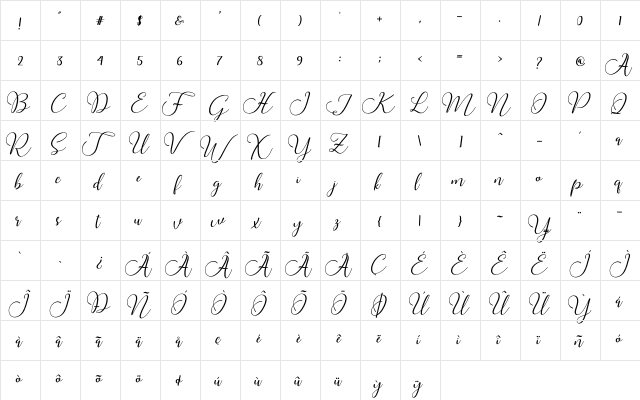
Buttercup Script Regular
Design Context for Buttercup Script Typeface
Buttercup Script brings a calligraphic fluidity to the page — its connecting strokes and expressive curves give it an unmistakably human quality.
Font Pairing: Combine Buttercup Script with a simple geometric sans for maximum contrast — the tension between flowing curves and clean structure is a classic typographic pairing.
Pro Tip: Pair Buttercup Script with a clean sans-serif for supporting text. The contrast between fluid script and geometric structure creates an elegant typographic hierarchy.